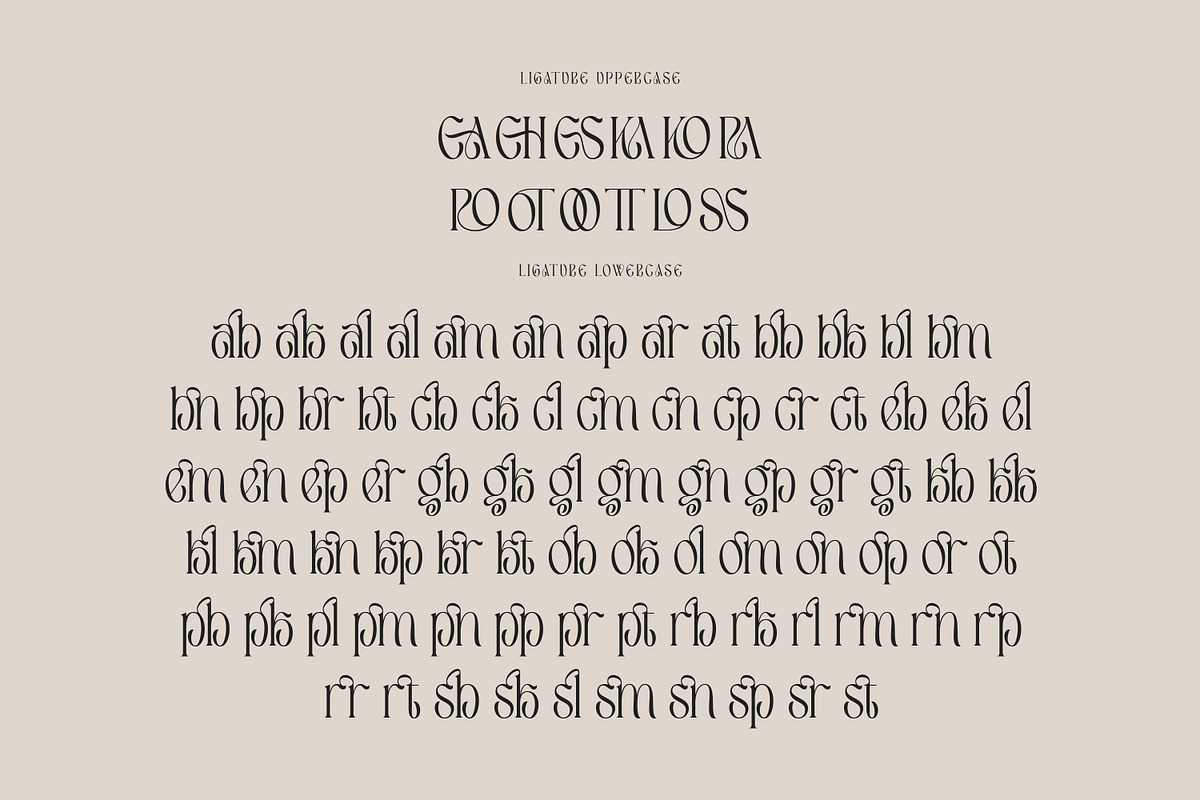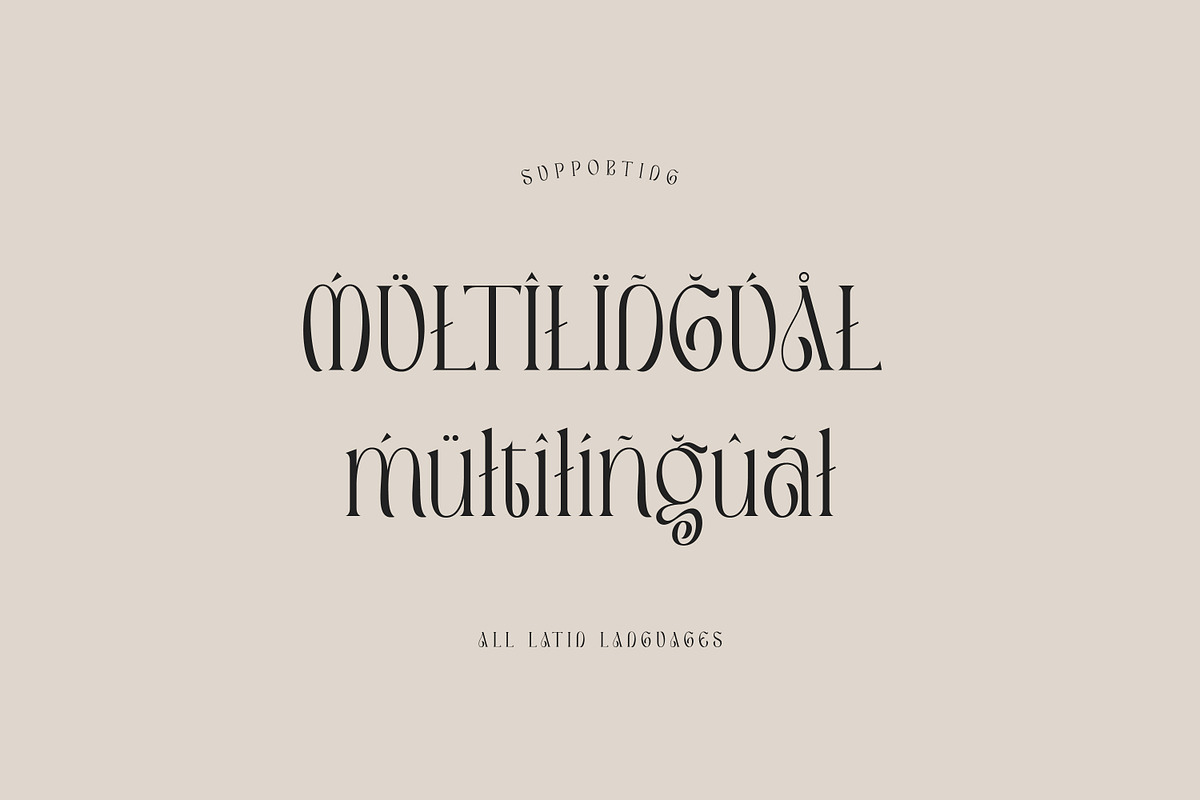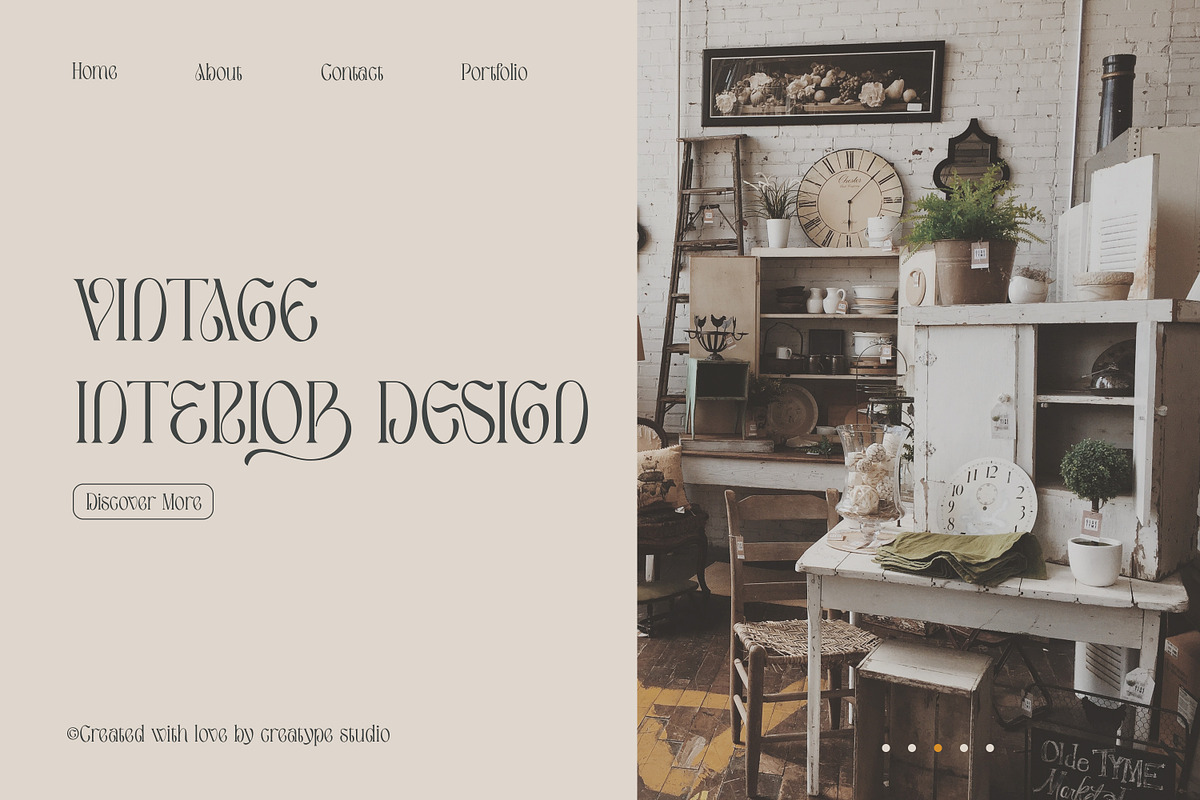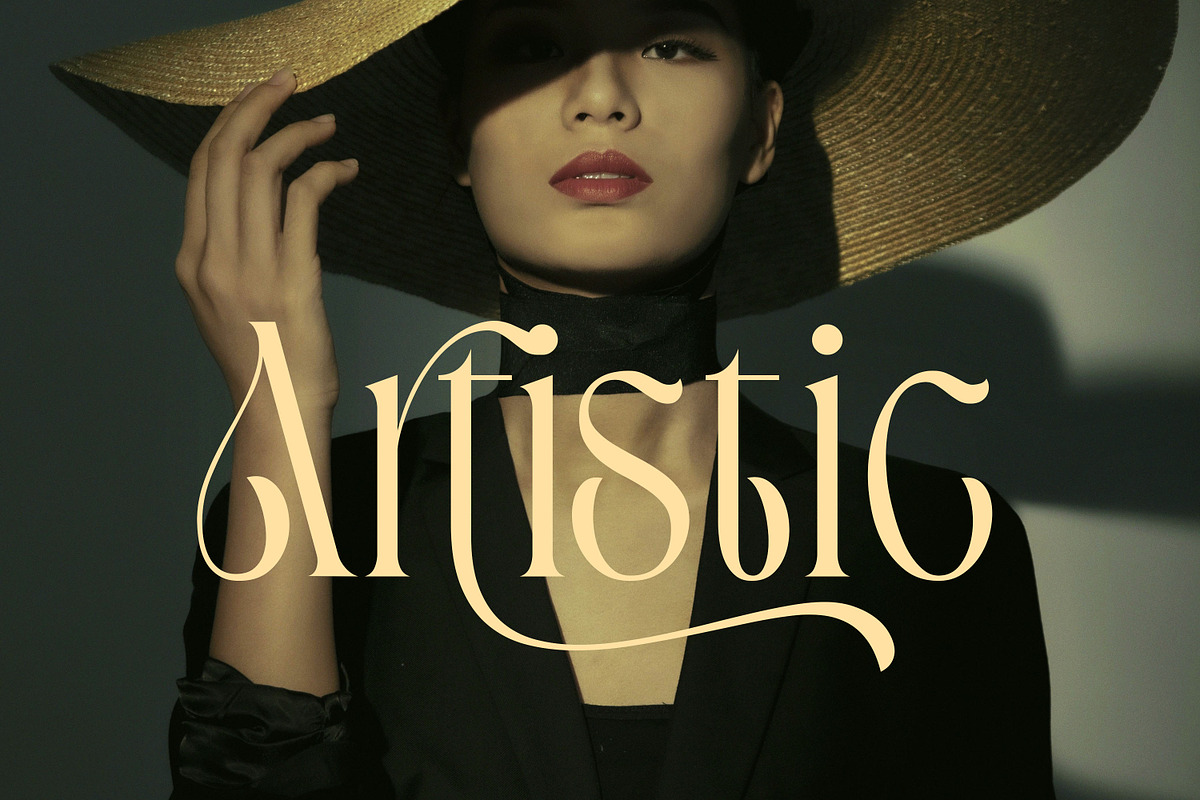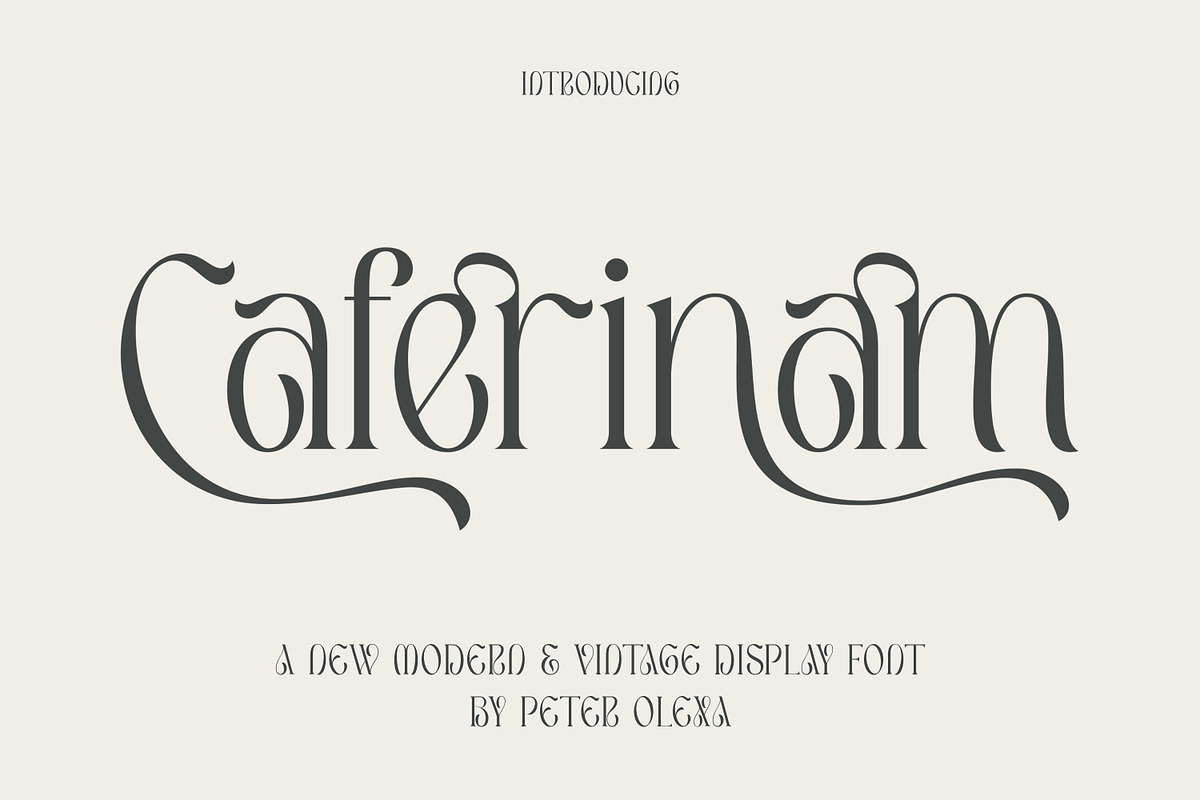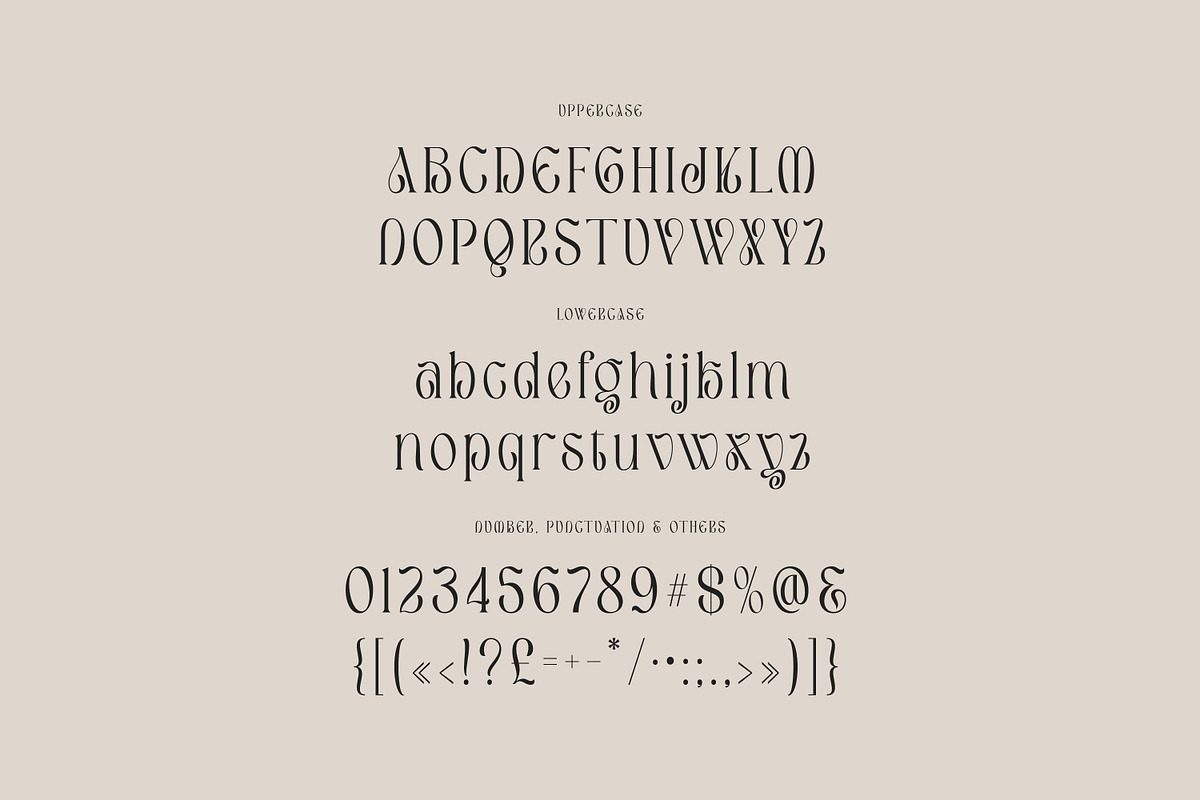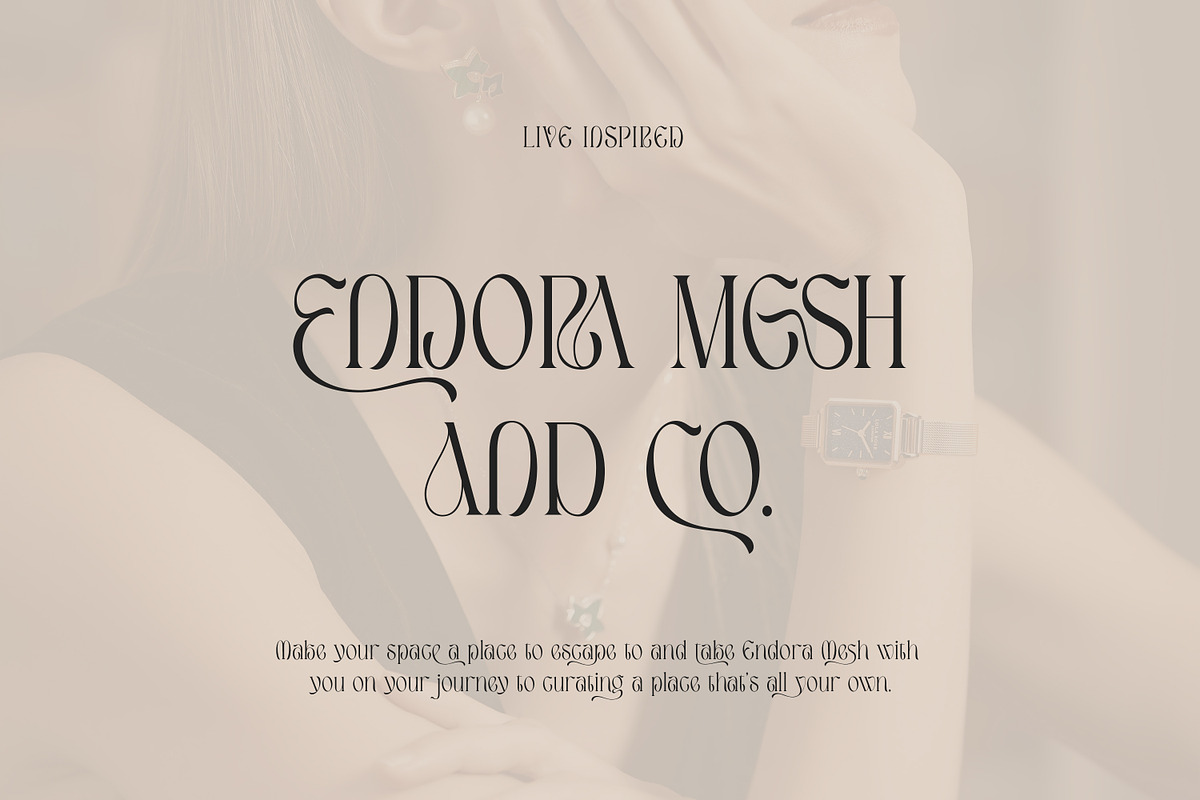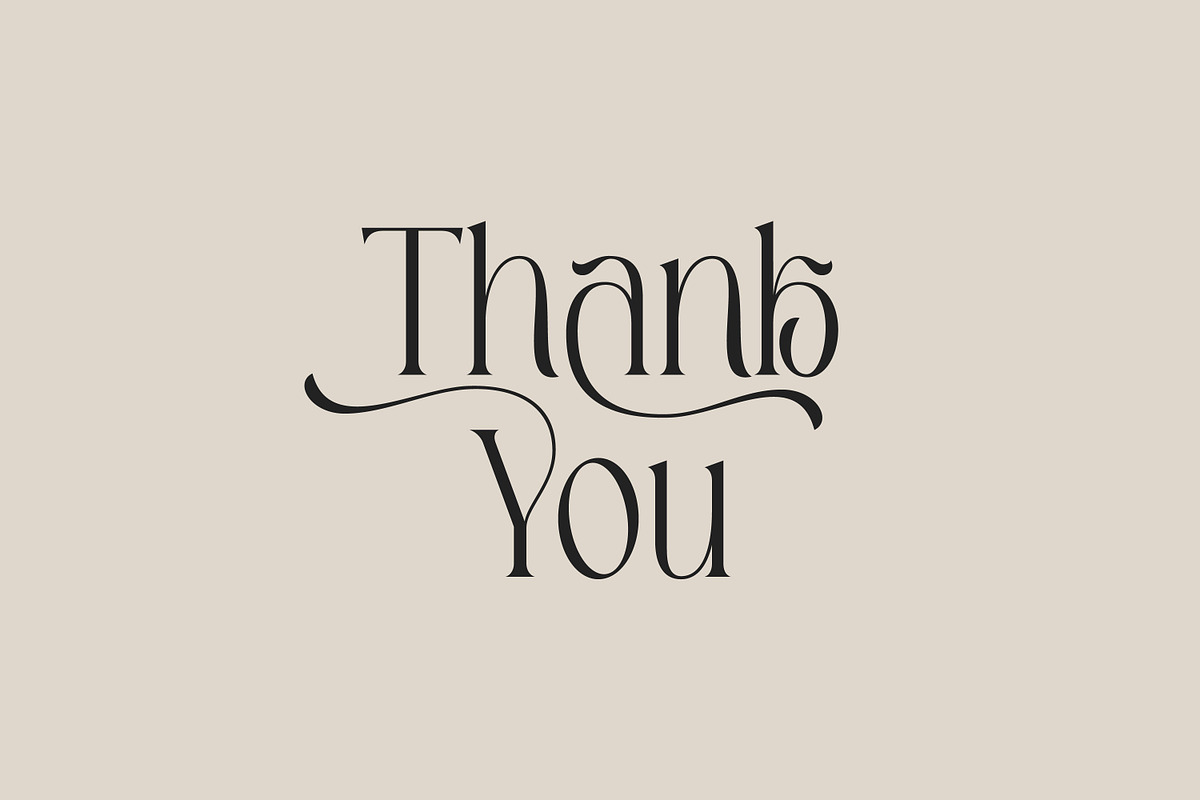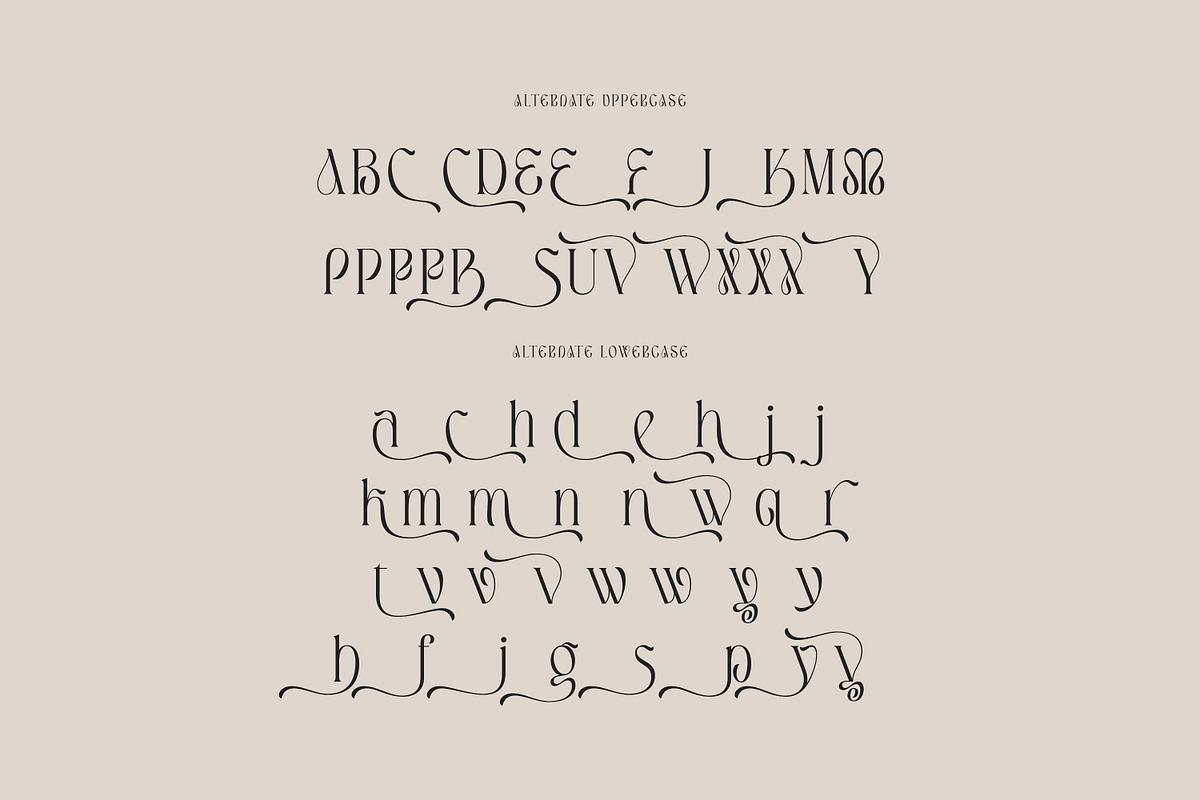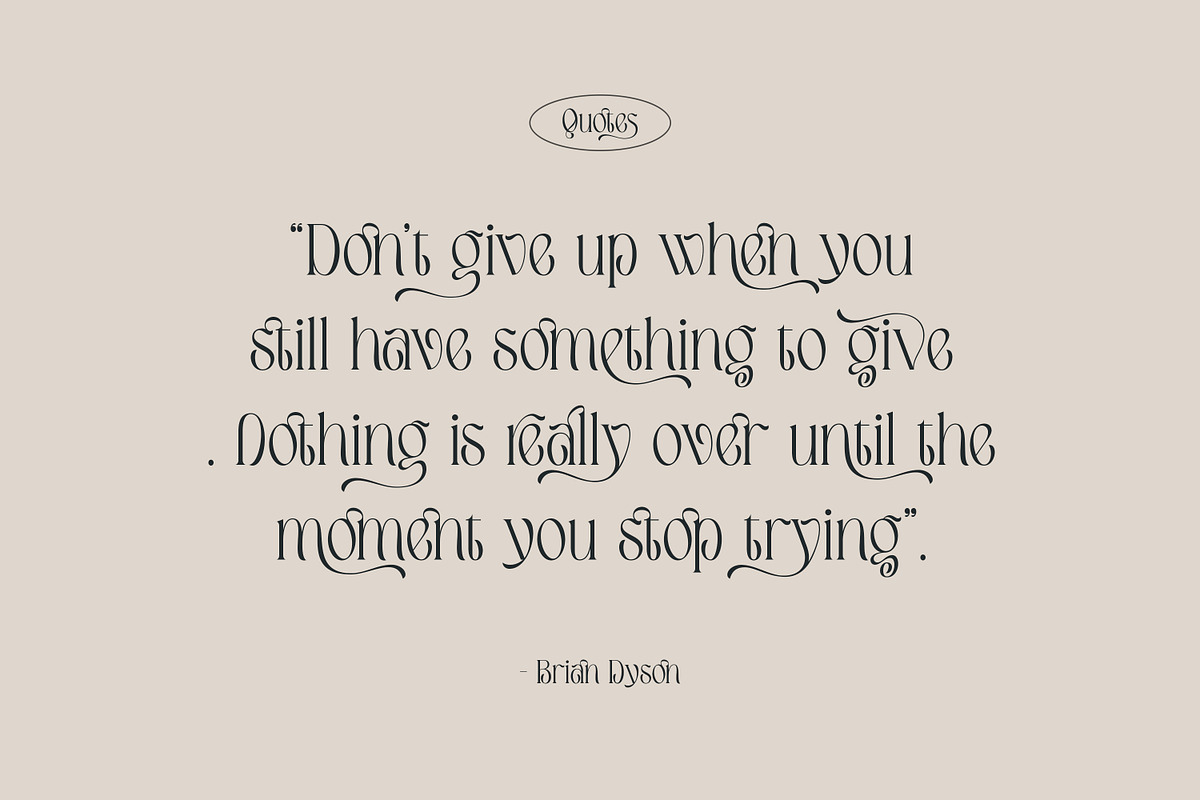
Caferinam Deco & Elegant Serif
Trendy, elegant, modern & decorative style serif font for your new modern projects. Luxury, artistic, fancy and fashion style on Caferinam font will be great for any branding project. Lot of alternates and ligatures will help you to create unique and original logo design or website header! Enjoy :)
- Alternate characters
- Lot of ligatures
- Great for modern branding projects!